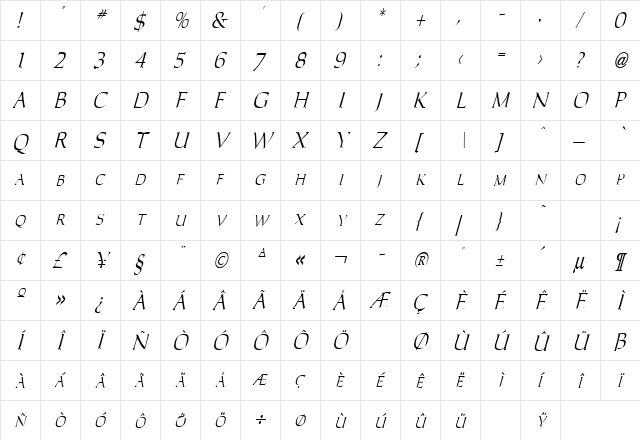
California 3 Italic
Design Context for California 3 Typeface
California 3 takes a measured approach to typography — its balanced proportions and neutral character make it a reliable workhorse for both digital and print work. Its italic angle brings a sense of urgency and motion to the letterforms.
Pro Tip: Try California 3 for annotation and caption copy alongside an upright companion — the contrast in angle creates a dynamic but ordered typographic system.